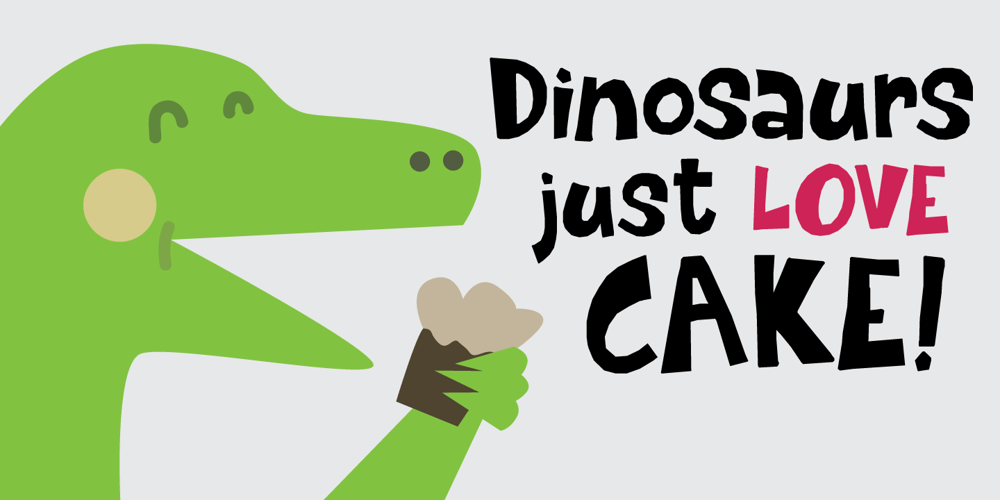
Dinosaur Cake Font Family was designed by David Kerkhoff and published by Hanoded. Dinosaur Cake contains 1 styles and family package options. My son Sam’s birthday is coming up and we need to think of a cake. He’s old enough not to want a themed cake, but I suddenly remembered that we gave him a dinosaur cake for his second birthday! Dinosaur Cake? That’s a totally cool name for a font! So here it is: Dinosaur Cake – The Font. It’s a cute little handmade font, which looks like it was cut out of paper, but I have to disappoint you this time: it was not cut out.